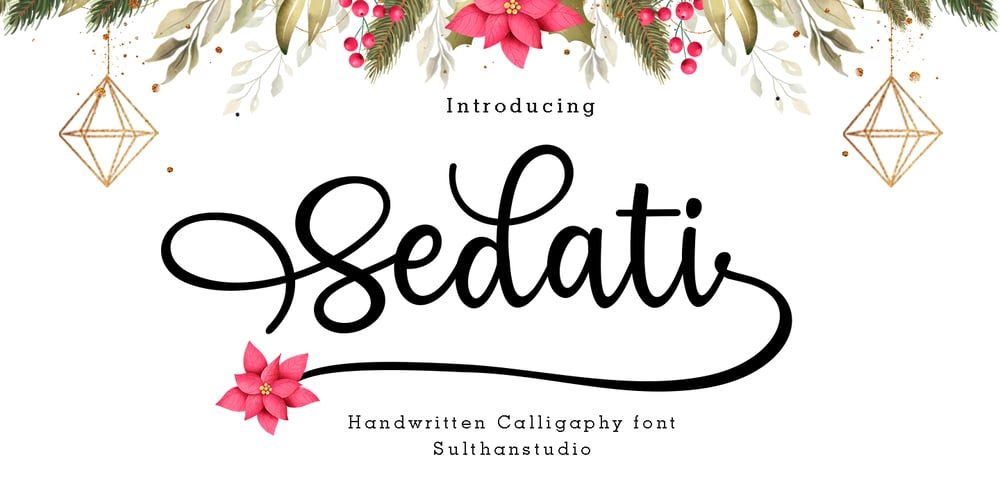
Sedati
Sedati font
Sedati Font Family was designed by Nasrullah and published by Sulthan Studio. Sedati contains 1 styles and family package options. is a font with a handwritten style that has its own characteristics. This font can make your work more attractive because it can giveor artistic touch to the text so that it looks more natural and attractive.